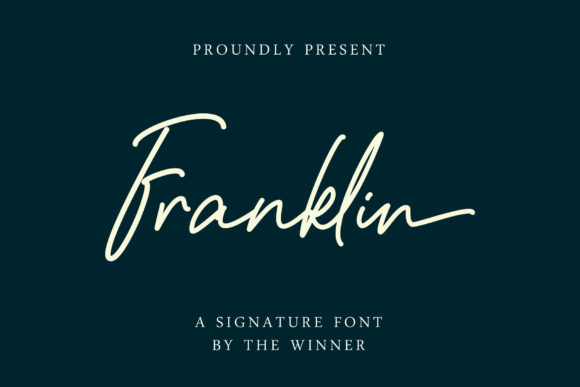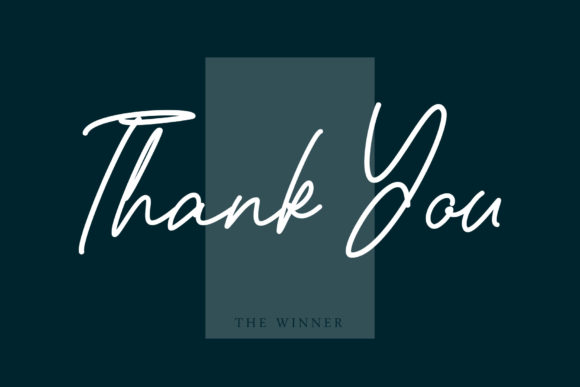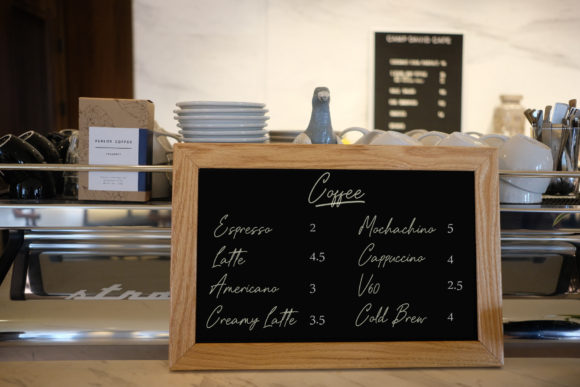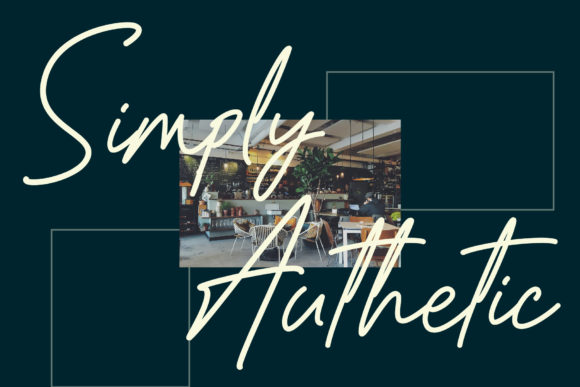
Introducing “Franklin,” a beautiful light handwritten font that captures the essence of elegance and sophistication. With its unique feel and stunning impact, this font is sure to add a touch of luxury to any design project.
The delicate and flowing nature of “Franklin” makes it perfect for creating designs that exude a sense of refinement and style. Each letter has been carefully crafted with attention to detail, resulting in a font that stands out with its distinct personality. The light weight of the font adds an airy and graceful touch, making it ideal for projects where subtlety and sophistication are desired.
One of the standout features of “Franklin” is its ability to create a stunning impact. Whether you’re working on branding materials, wedding invitations, logos, or any other design project, this font will captivate your audience with its elegance and beauty. The unique feel of the font sets it apart and adds a luxurious touch that elevates your designs to the next level.
With its versatility, “Franklin” can be used in a wide range of design projects. From editorial layouts to packaging designs, the font adapts effortlessly to different contexts and aesthetics. Its clean and refined style allows it to blend seamlessly with various design elements, adding a touch of sophistication without overpowering the overall composition.
“Franklin” is designed to make an impact while maintaining readability. Even with its unique and stylish appearance, the font remains legible at various sizes and on different mediums. This ensures that your message is conveyed clearly and effectively, whether it’s in print or digital form.
Incorporating “Franklin” into your design projects is effortless, thanks to its user-friendly nature. The font is easy to work with and pairs well with other typefaces, allowing you to create beautiful typography combinations. Its stunning impact will instantly enhance the visual appeal of your designs, making them stand out and leaving a lasting impression on your audience.
Let “Franklin” be the font that adds a luxury spark to your design projects. With its unique feel, stunning impact, and versatile nature, this font will elevate your creations and create an atmosphere of elegance and sophistication. Embrace the beauty of “Franklin” and let it transform your designs into works of art.